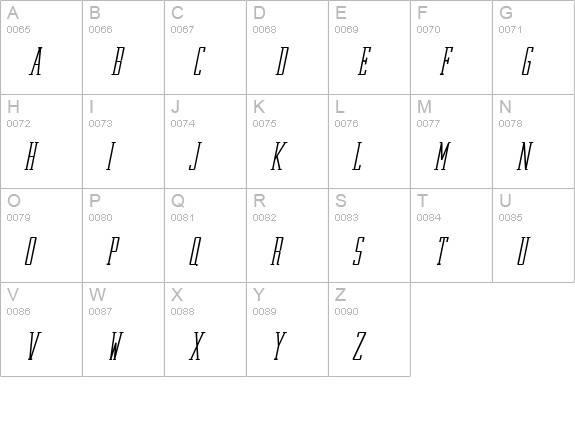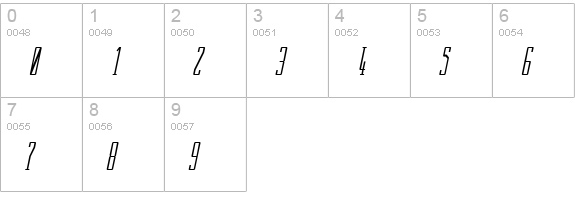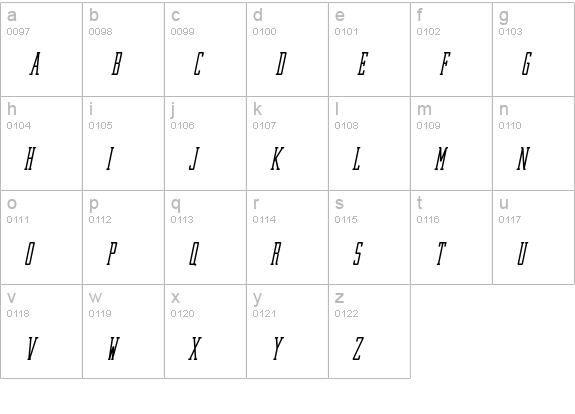
Dalle Italic Font Details
Dalle Italic is a distinctive, italic variant in the Dalle typeface family \xE2\x80\x94 well suited to design and typography projects.
Dalle Italic font is a stunning and elegant typeface that exudes sophistication and style. Its sleek and modern design makes it perfect for a wide range of design projects, from branding to editorial layouts. The italicized characters add a touch of flair and uniqueness to any text, creating a visually striking impact. What's even better is that Dalle Italic font is completely free to download at FontsMarket.com. This means you can easily access and use this beautiful font for your creative endeavors without any cost involved. Don't miss out on this fantastic opportunity to elevate your designs with the exquisite Dalle Italic font - download it now and let your creativity shine!